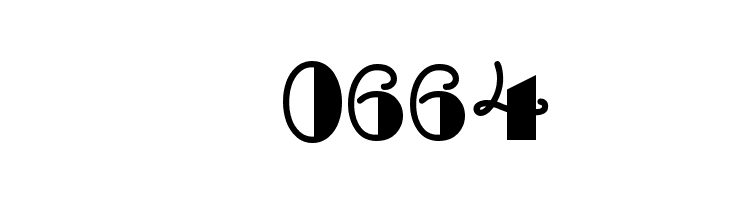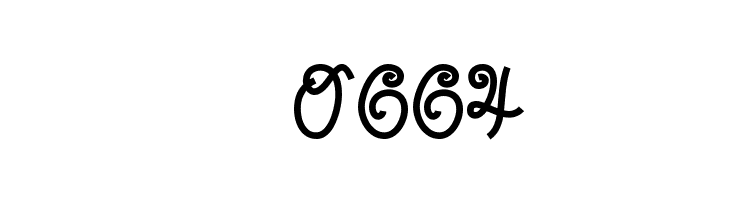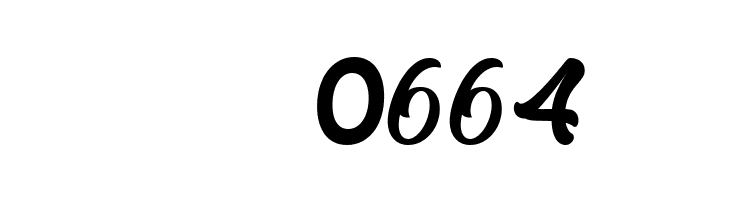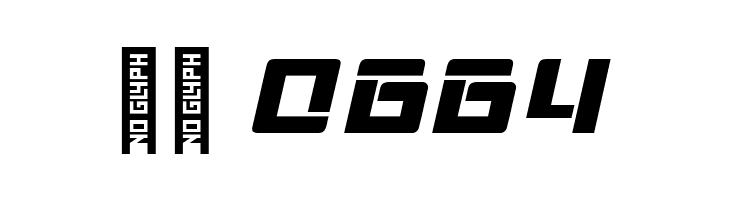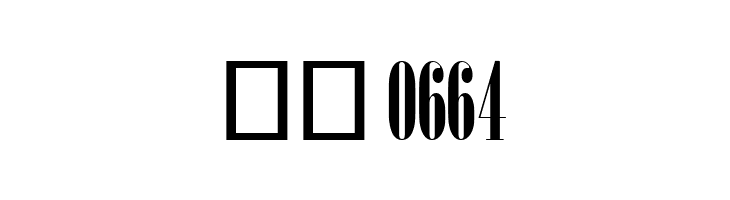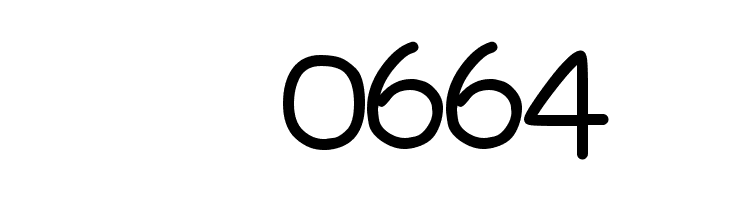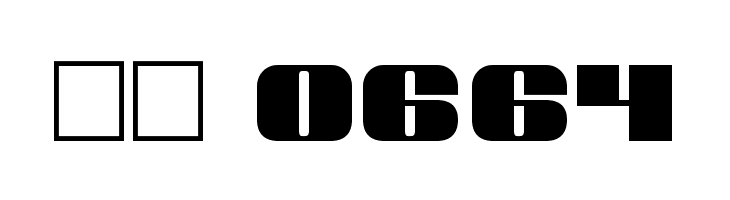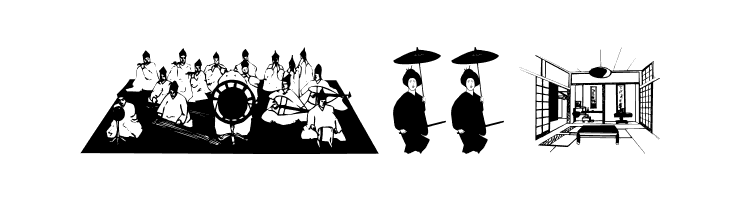
A bold, expanded font with a geometric and impactful style.
A bold, expanded, and italic font with high contrast and a modern, dynamic style.
A bold, italicized font with a dynamic and modern style.
A bold, angular font with a dynamic, italicized style.
A bold, geometric font with a strong, industrial feel.
A decorative script font with playful, flowing cursive letterforms.
A decorative script font with playful, swirling letterforms.
A bold, rounded font with a playful and friendly style.
A bold, playful font with chunky, rounded characters and whimsical swirls.
A bold, playful font with whimsical, dynamic characters.
A whimsical and artistic font with exaggerated curves and dynamic strokes.
A bold, artistic font with a modern, cut-out style.
A bold, geometric font with a strong, modern presence.
A bold, geometric font with a modern and strong presence.
A bold, decorative font with geometric and playful elements.
A collection of decorative icons with cultural and abstract motifs.
Ornate, botanical-themed decorative font with floral illustrations.
Illustrative font using Japanese cultural scenes for each character.
A bold, angular font with geometric shapes and calligraphic influences.
Ornamental dingbat font of Japanese crane crests.
A sleek, modern font with an Art Deco influence, featuring elongated, narrow characters and high contrast.
A decorative font with a striped pattern and bold, modern design.
A bold, brush-style font with an expressive and artistic flair.
A playful, decorative font with patterned characters ideal for creative projects.
A playful, whimsical handwritten font with irregular strokes and a casual style.
A whimsical, handwritten font with irregular strokes and a playful aesthetic.
A decorative script font with elegant, flowing characters and bold weight.
A whimsical and decorative font with intricate, playful letterforms.
A bold, brush-style font with dynamic, angular strokes and a hand-painted look.
A bold, expressive script font with dynamic strokes and playful elegance.